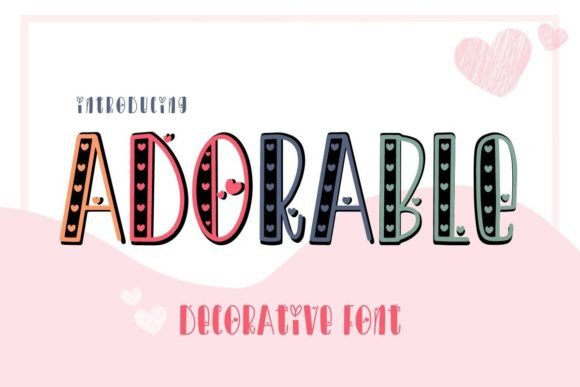
Looking for a font that exudes sweetness, love, and casual charm? Look no further than Adorable Font! Created by AnningArts, this cute and decorative font is perfect for anyone looking to add a touch of romance to their designs.
With its Font Style For Love Letter keyword, Adorable Font is the perfect choice for Valentine's Day-themed designs. But that's not all - this versatile font can be used for a wide variety of products, including banners, content, mugs, cards, shirts, stationery, social media posts, and more!
Adorable Font is more than just a pretty face. It's also a keyword-rich font that will elevate your designs to the next level. And with its eye-catching and emotional appeal, this font is sure to captivate users and inspire them to download it right away.